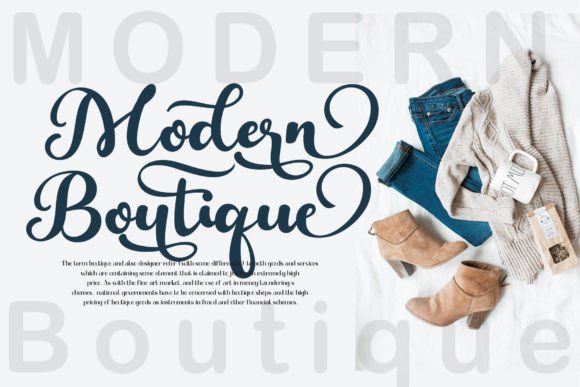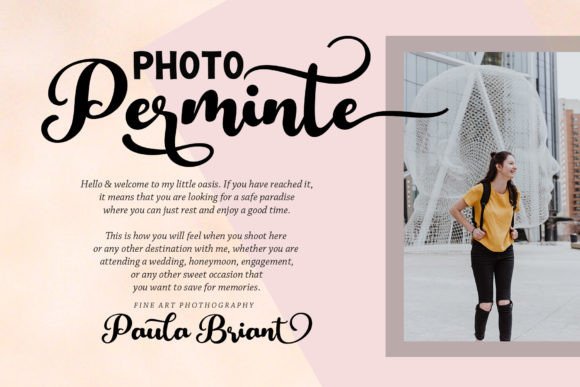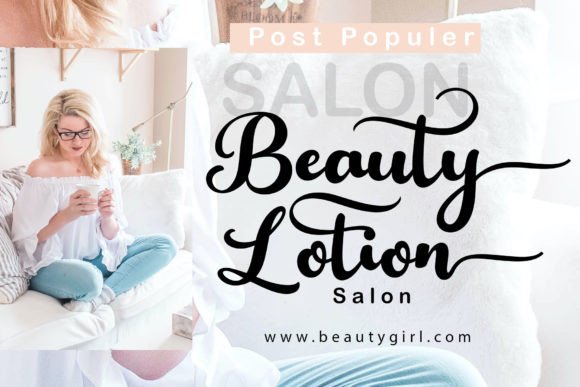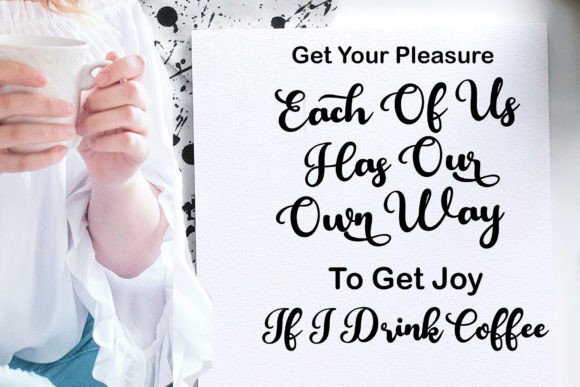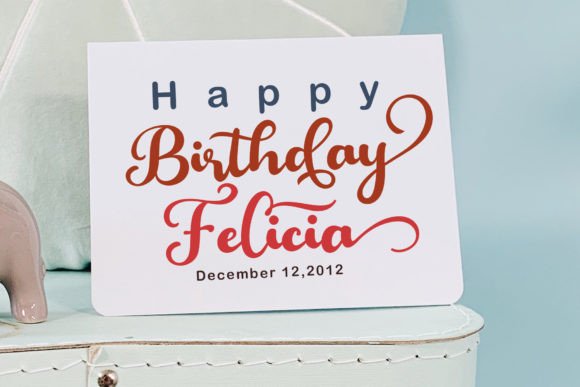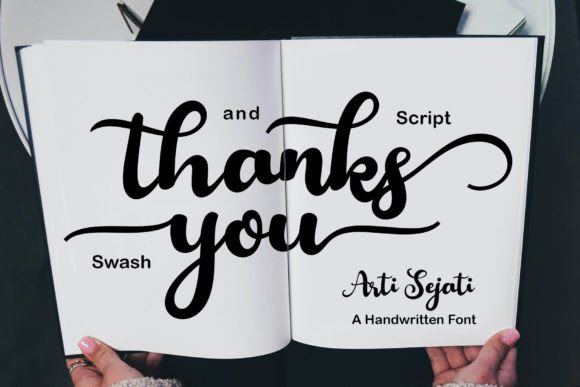
Discover the Elegance of Arti Sejati Font: Elevate Your Designs with Sophistication
In the world of typography, a font can make or break a design. It’s the perfect blend of style, elegance, and personality that transforms a simple text into a stunning visual statement. If you’re on the hunt for a font that exudes sophistication and charm, look no further than the Arti Sejati Font. This bold script font is a game-changer for designers and crafters alike, offering a versatile and eye-catching solution for a wide range of projects.
The Essence of Arti Sejati Font
Arti Sejati is a stunning bold script font that is perfect for adding a touch of elegance and sophistication to your designs. With bold and expressive strokes, this font gives a bold impression and attracts attention. The unique characteristics of Arti Sejati make it an excellent choice for designers who want to create a lasting impact. Whether you’re designing wedding invitations, logos, branding materials, or other creative projects, Arti Sejati will add a touch of charm and personality that sets your work apart.
Key Features of Arti Sejati Font
- Bold and Expressive Strokes: Arti Sejati’s bold strokes are designed to make a statement. The font’s confident and expressive lines add a level of sophistication and elegance to any design.
- Versatile and Adaptable: This font is versatile and can be used for both formal and casual designs, making it suitable for a variety of applications. From wedding invitations to logos and branding materials, Arti Sejati adapts seamlessly to different design needs.
- Easy to Read: Despite its bold nature, Arti Sejati remains easy to read, ensuring that your message is conveyed clearly and effectively.
- High-Quality Design: Crafted with attention to detail, Arti Sejati is a high-quality font designed to meet the needs of professional designers and crafters.
Applications of Arti Sejati Font
The possibilities are endless with Arti Sejati. Here are some of the many applications where this stunning font can make a significant impact:
- Wedding Invitations: Add a touch of romance and elegance to your wedding invitations with Arti Sejati. The font’s bold and expressive strokes create a beautiful first impression for your special day.
- Logos and Branding: Use Arti Sejati to create unique and memorable logos and branding materials. The font’s sophistication and charm can help elevate your brand’s identity.
- Stationery and Greeting Cards: From formal stationery to casual greeting cards, Arti Sejati adds a level of elegance and personality that makes your correspondence stand out.
- Digital and Print Media: Whether you’re designing for digital platforms or print, Arti Sejati performs exceptionally well, ensuring your message is conveyed beautifully across different mediums.
Tips for Using Arti Sejati Font
To make the most of Arti Sejati, consider the following tips:
- Pair with Complementary Fonts: Arti Sejati pairs well with clean and simple fonts. Experiment with different combinations to find the perfect balance for your design.
- Experiment with Colors: While Arti Sejati looks stunning in black, don’t be afraid to experiment with different colors to match your brand’s palette or design theme.
- Use for Headlines and Titles: Arti Sejati is perfect for headlines and titles, where its bold and expressive strokes can make a significant impact.
Arti Sejati Font is a powerful tool for designers and crafters looking to add a touch of elegance and sophistication to their work. With its bold and expressive strokes, versatility, and high-quality design, Arti Sejati is an excellent choice for a wide range of projects. Whether you’re designing wedding invitations, logos, or branding materials, this stunning bold script font is sure to make your designs stand out. Discover the elegance of Arti Sejati today and elevate your designs to new heights of sophistication and charm.